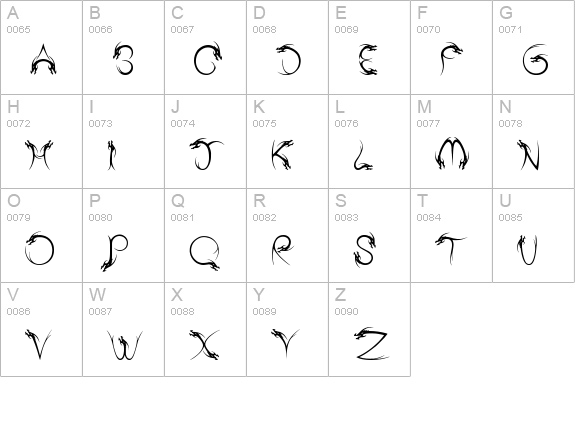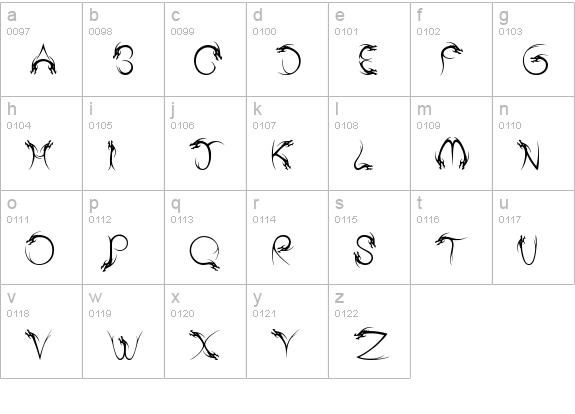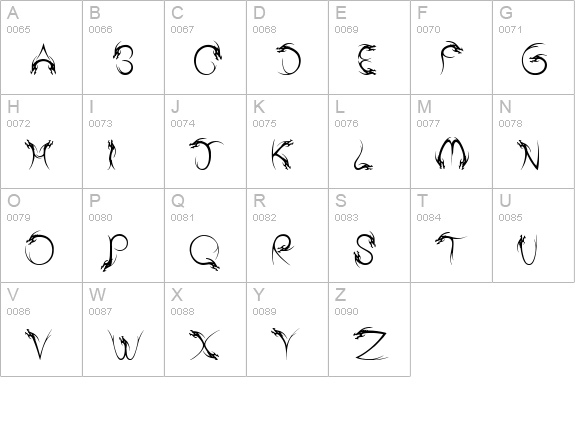
Tribal Dragon Font Details
Introducing Tribal Dragon Font, a captivating typeface that embodies the essence of ancient tribal artistry and the enigmatic allure of dragons. This unique font is the perfect blend of intricate detailing and boldness, making it a must-have for any design project seeking to make a powerful statement. Tribal Dragon Font features a mesmerizing combination of sharp edges, curvaceous lines, and intricate patterns, reminiscent of the mythical creatures that have been revered throughout history. Each letter is intricately crafted to evoke the awe-inspiring presence of dragons, showcasing their majestic power and mysticism. This font is not only visually stunning but also highly versatile. Whether you're designing a logo for a fantasy-themed brand, creating captivating headlines, or embellishing your artwork with a touch of ancient mystique, Tribal Dragon Font will effortlessly elevate your designs to new heights. And the best part? Tribal Dragon Font is absolutely free! As a designer, we understand that finding high-quality fonts can be a costly endeavor. That's why we are thrilled to offer this remarkable typeface as a free download, exclusively at FontsMarket.com. With just a few clicks, you can add this extraordinary font to your collection and unleash its captivating magic in your designs. Don't miss out on the opportunity to make a lasting impression with Tribal Dragon Font. Download it today and let the mythical power of dragons breathe life into your creative endeavors.